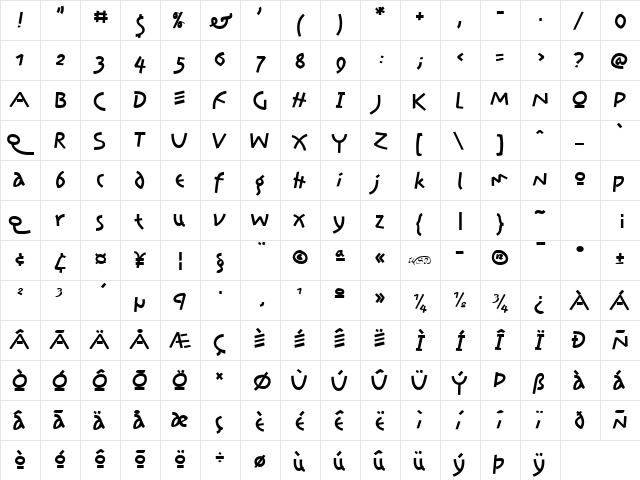
Prawn Handwrite Regular Font Preview
Prawn Handwrite Regular
Prawn Handwrite Regular Font Details
Design Context for Prawn Handwrite Typeface
Prawn Handwrite flows with the natural rhythm of handwritten lettering, making it ideal for designs that call for warmth and personal expression.
Font Pairing: Combine Prawn Handwrite with a simple geometric sans for maximum contrast — the tension between flowing curves and clean structure is a classic typographic pairing.
Pro Tip: Use Prawn Handwrite for short runs of text — names, titles, or taglines. Extended body copy in script faces tires the eye quickly.